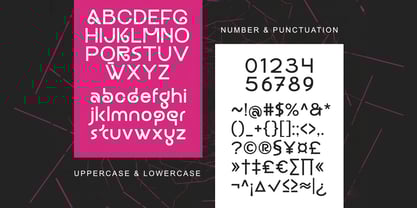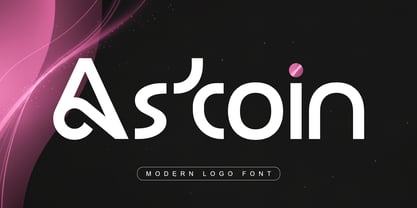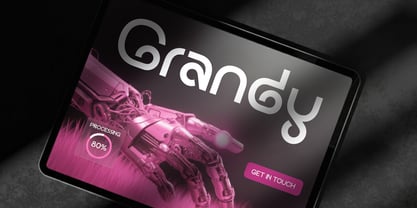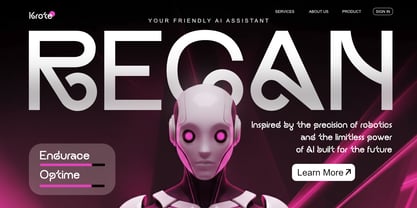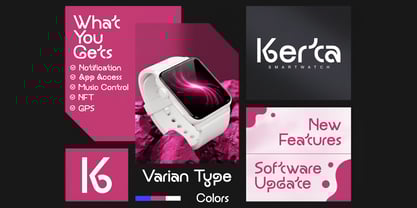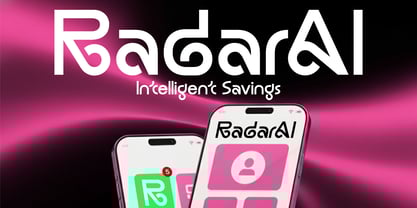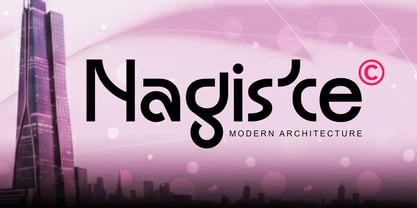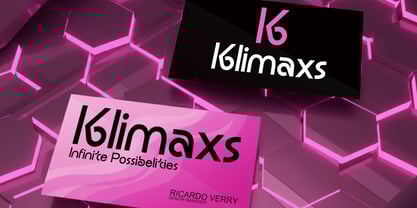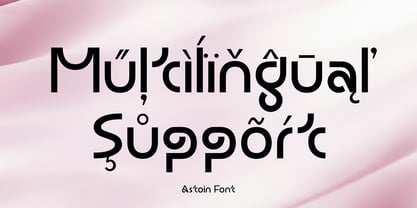
Astoin
by Sealoung
The Astoin Font Family was designed by Saiful Anwar and published by Sealoung. Astoin contains 1 styles.
Astoin – Modern Futuristic Logo Font Astoin is a futuristic modern logo font that combines geometric precision with sleek minimalism. Every curve and line in Astoin is crafted to represent innovation, technology, and digital sophistication making it perfect for modern branding and tech-forward designs. With its distinctive letterforms and smooth futuristic flow, Astoin is ideal for AI technology, crypto projects, architecture firms, startups, and digital branding. This font exudes confidence and modern elegance, helping your brand stand out with a strong visual identity. FEATURES Uppercase & Lowercase Numbers & Punctuation Multilingual Support Perfect for logo, branding, and modern display Make a bold impression with Astoin – Modern Futuristic Logo Font for your next creative project.
My name is Saiful Anwar, We live in Mojokerto, Indonesia. We started my type foundry studio called Sealoung Studio in 2020. Sealoung is a Type Design Studio that makes unique fonts for your business purpose. We are always interested and focused on aesthetics, functionality, legibility, suitable for branding and broad design purposes. When creating a font, we usually start by exploring the characters first. Most of the time we draft letters by drawing them until it gets a character that has a deep personality. His works span a variety of styles and themes and have been trusted by major, local and international companies. Let's be a friend and follow us to get our products updates. Thank You!